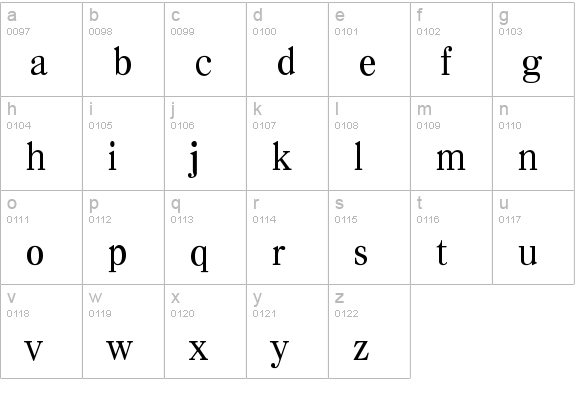
Casad-Regular is the standard, neutral variant in the Casad typeface family \xE2\x80\x94 well suited to general body text, paragraphs, and standard typographic work.
Casad-Regular is a versatile and elegant font that exudes sophistication and style. With its clean lines and classic design, this font is perfect for a wide range of design projects, from branding to editorial layouts. Its timeless appeal makes it a popular choice for designers looking to add a touch of refinement to their work. The best part? Casad-Regular is available for free download at FontsMarket.com. This means you can access this high-quality font without any cost, making it a valuable addition to your font library. Whether you're a professional designer or a hobbyist, Casad-Regular is sure to elevate your projects with its timeless beauty and versatility. Download it today and see the difference it can make in your designs.